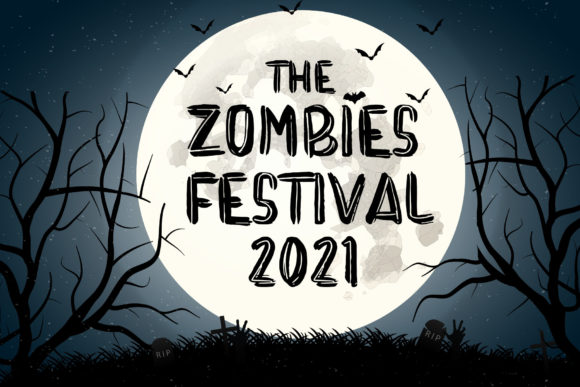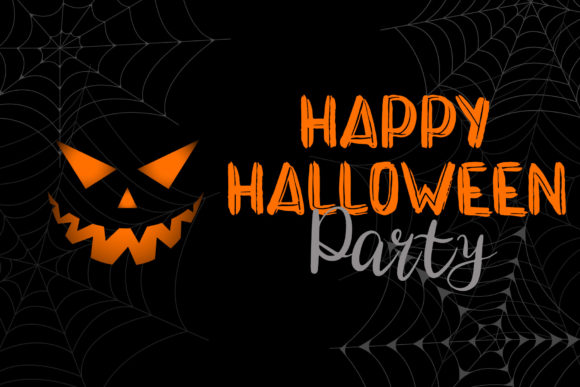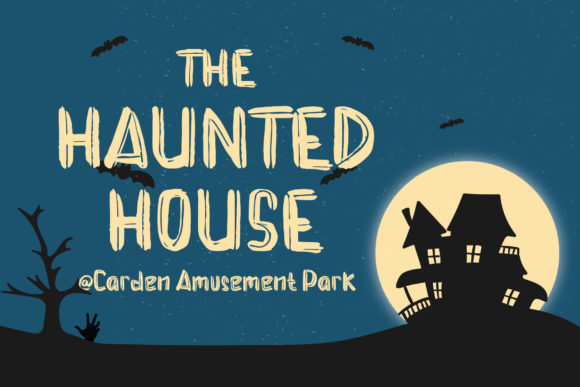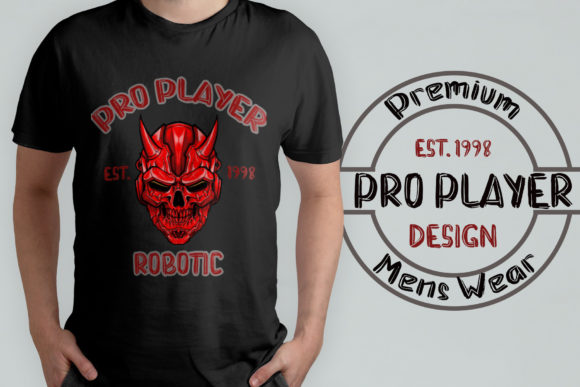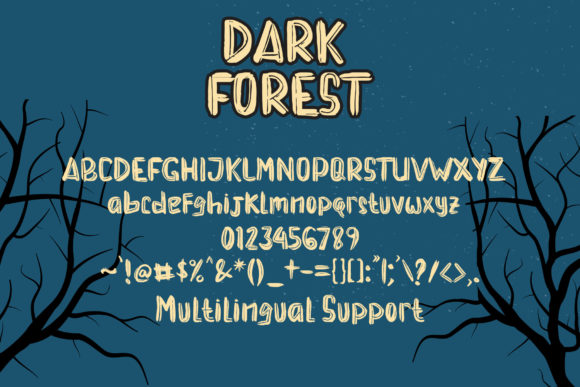
Unleash Your Creativity with Dark Forest Font: A Cool, Brushed, and Casual Display Font
Are you a designer or crafter looking for a font that can elevate your creations and add a touch of personality to your projects? Look no further than Dark Forest Font, a cool, brushed, and casual display font that’s perfect for a wide range of applications. In this article, we’ll explore the features and benefits of Dark Forest Font, and show you how it can become an incredible asset to your font library.
What is Dark Forest Font?
Dark Forest Font is a unique and stylish display font that’s designed to add a touch of ruggedness and charm to your designs. With its brushed texture and casual feel, this font is perfect for creating eye-catching headlines, titles, and captions that demand attention. Whether you’re working on a branding project, a marketing campaign, or a personal craft project, Dark Forest Font is sure to make a lasting impression.
Key Features of Dark Forest Font
So, what makes Dark Forest Font so special? Here are just a few of its key features:
- Brushed Texture: Dark Forest Font features a unique brushed texture that gives it a rough, organic feel. This texture adds depth and character to your designs, making them stand out from the crowd.
- Casual and Cool: This font has a relaxed, casual vibe that’s perfect for creating designs that feel approachable and friendly. Whether you’re targeting a young audience or an older demographic, Dark Forest Font is sure to resonate.
- Display Font: As a display font, Dark Forest is designed to be used at larger sizes, making it perfect for headlines, titles, and captions. It’s also great for creating eye-catching graphics and posters.
- Versatile: Despite its unique texture and feel, Dark Forest Font is incredibly versatile. It can be used for a wide range of projects, from branding and marketing to crafting and DIY.
Benefits of Using Dark Forest Font
So, why should you choose Dark Forest Font for your next project? Here are just a few benefits of using this amazing font:
- Adds Personality: Dark Forest Font adds a touch of personality to your designs, making them more engaging and memorable.
- Elevates Your Brand: If you’re looking to create a strong brand identity, Dark Forest Font can help. Its unique texture and feel can be used to create a consistent visual brand that stands out from the competition.
- Perfect for Crafting and DIY: If you’re a crafter or DIY enthusiast, Dark Forest Font is a great choice for your projects. It adds a touch of handmade charm to your creations, making them more special and unique.
How to Use Dark Forest Font
Using Dark Forest Font is easy. Here are a few tips to get you started:
- Pair it with Other Fonts: Dark Forest Font pairs well with a wide range of other fonts, from clean and simple sans-serifs to more ornate script fonts. Experiment with different pairings to find the one that works best for your project.
- Use it for Headlines and Titles: Dark Forest Font is perfect for creating eye-catching headlines and titles. Use it to add a touch of drama and flair to your designs.
- Add Texture and Depth: Dark Forest Font’s brushed texture adds depth and character to your designs. Use it to create a sense of texture and tactility in your projects.
| Font Name | Dark Forest Font |
| Author | boogaletter |
Dark Forest Font is a cool, brushed, and casual display font that’s perfect for designers and crafters looking to add a touch of personality to their projects. With its unique texture and feel, this font is sure to elevate your creations and make them stand out from the crowd. Whether you’re working on a branding project, a marketing campaign, or a personal craft project, Dark Forest Font is an incredible asset to have in your font library.